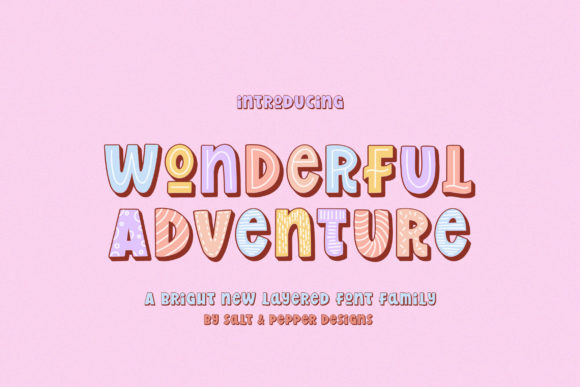
Dive into the realm of creativity and self-expression with Wonderful Adventure Font, a charming trio of display, sans serif, and dingbat fonts. This dreamy font family, beautifully crafted by Salt and Pepper Fonts, will ignite your imagination and transform your designs into whimsical masterpieces.
The display font exudes a playful spirit with its bouncy curves and energetic strokes. Each letter dances across the page, evoking a sense of merriment and adventure. The sans serif font adds a touch of sophisticated simplicity, with clean lines and a classic appeal. Whether you're designing invitations, posters, or social media graphics, these fonts will make your words come alive.
And let's not forget the delightful dingbat font, a treasure trove of playful icons, arrows, stars, and more. These whimsical elements will add a touch of whimsy and personality to your creations. Sprinkle them throughout your designs to create eye-catching accents or use them to craft unique borders and frames.
With Wonderful Adventure Font, the possibilities are endless. Explore the world of print and digital art, creating designs that resonate with joy and originality. From children's activities to school projects, this font family will add a touch of magic to every endeavor. Let your imagination soar and embark on a creative adventure with Wonderful Adventure Font.
Key features:
- Trio font family: display, sans serif, and dingbats
- Playful and authentic style
- Perfect for children's activities and school projects
- Enchanting for invitations, posters, social media graphics, and more